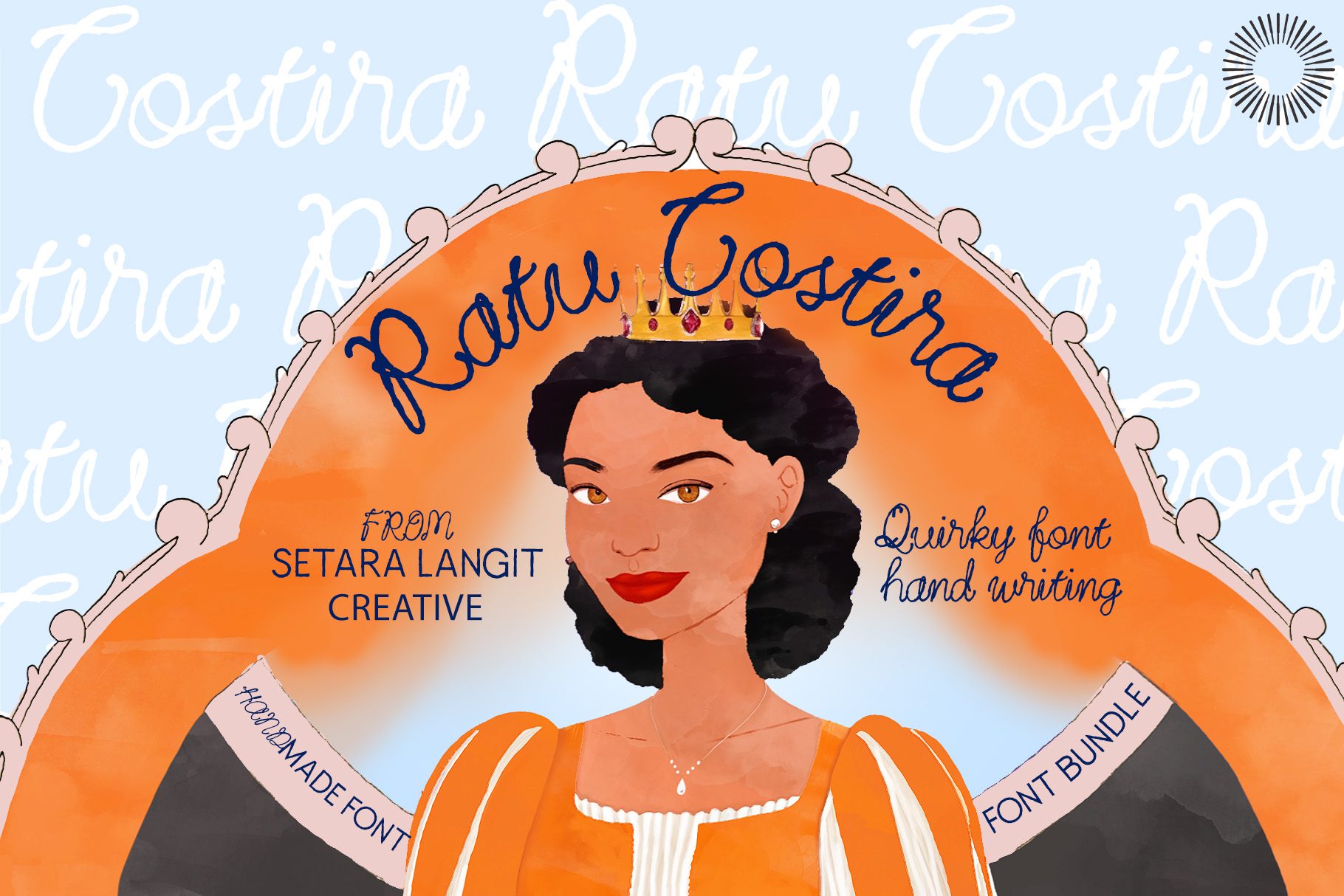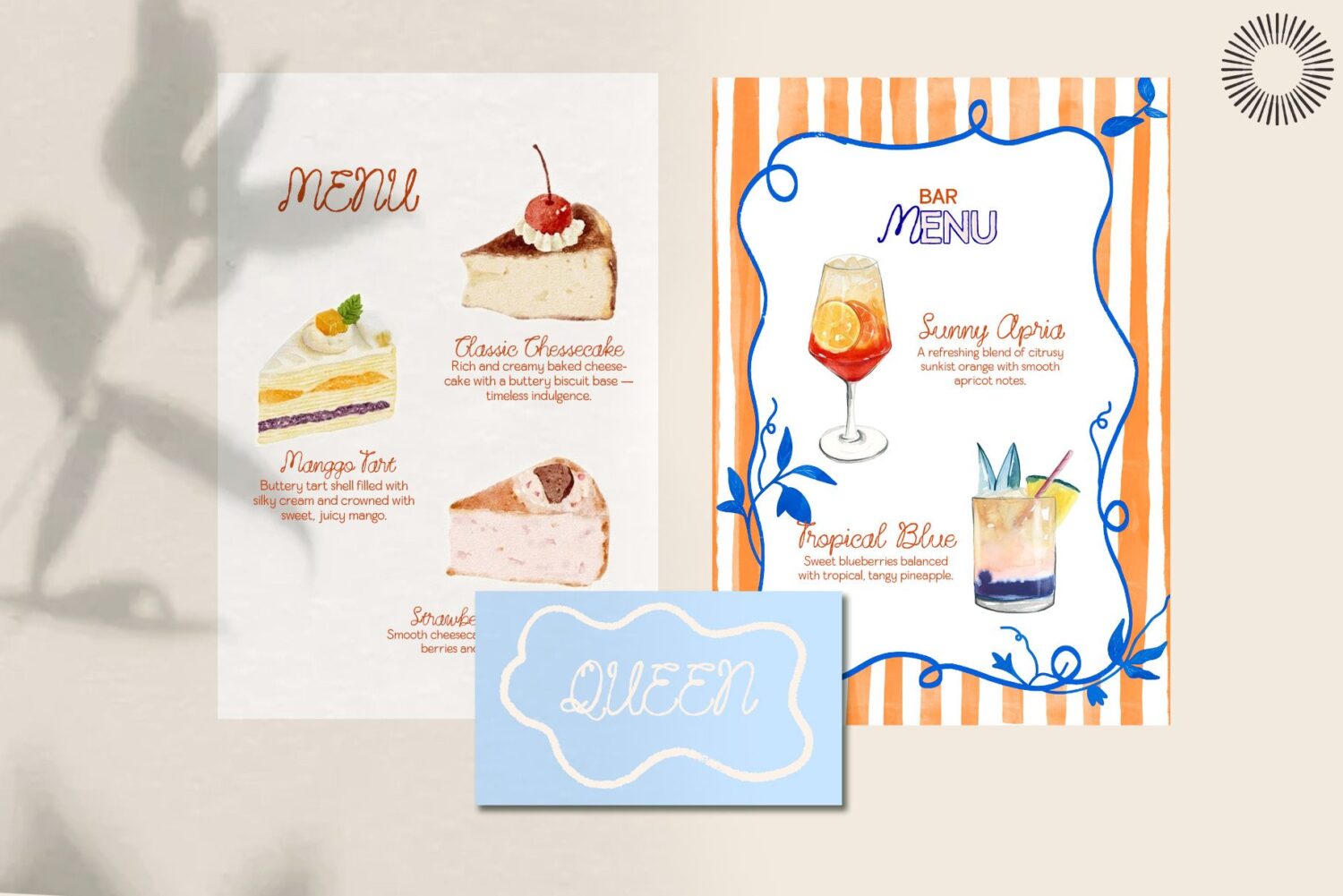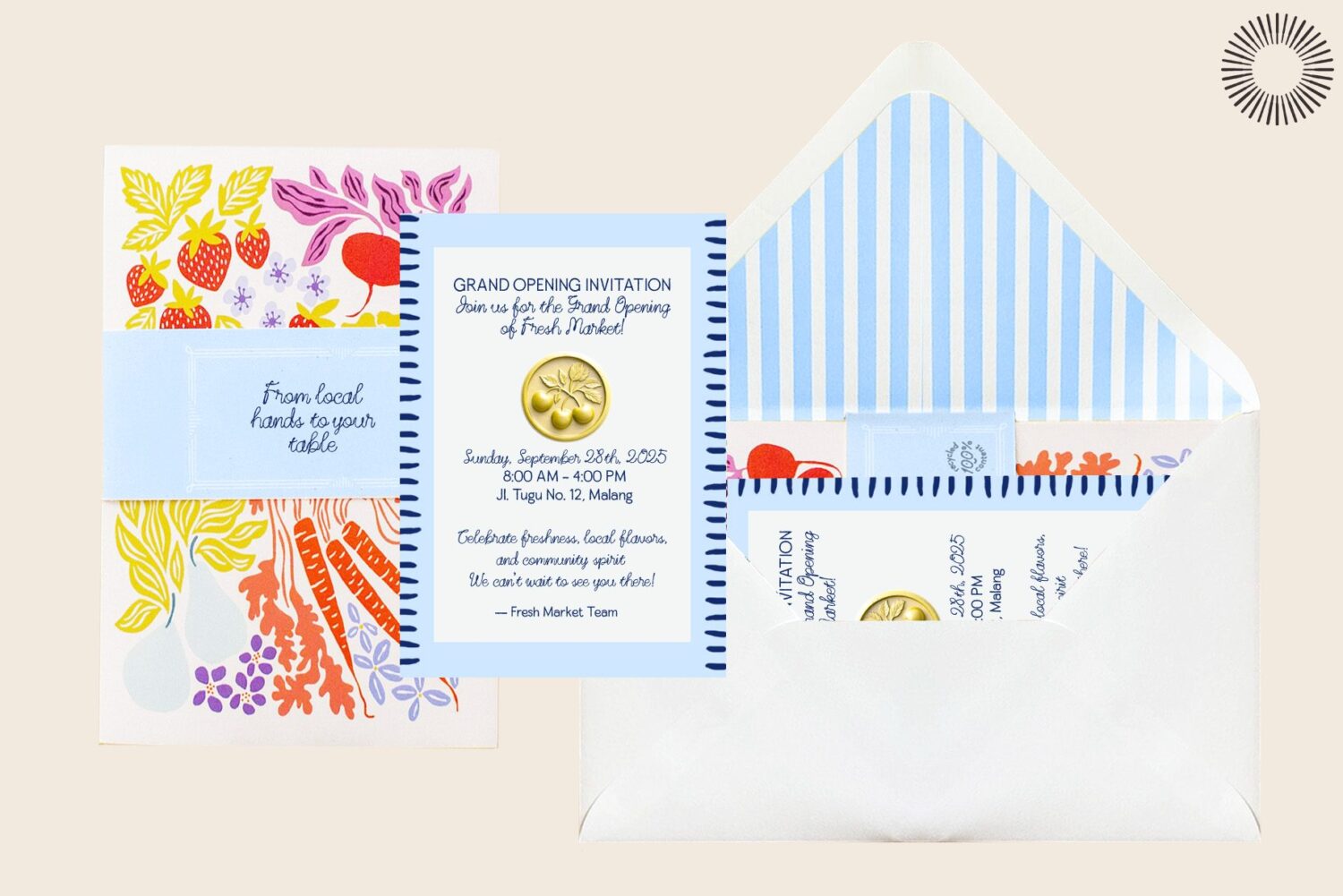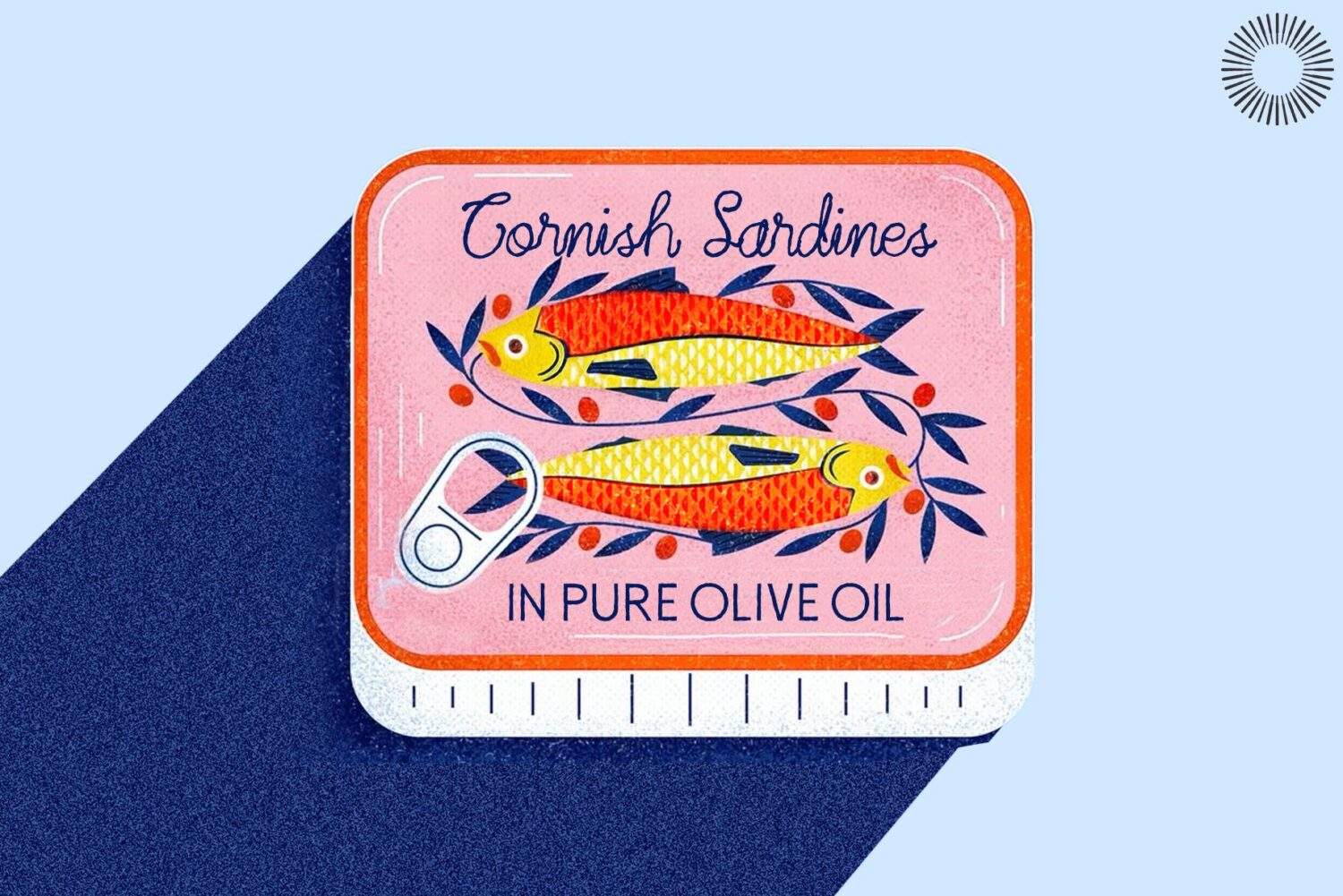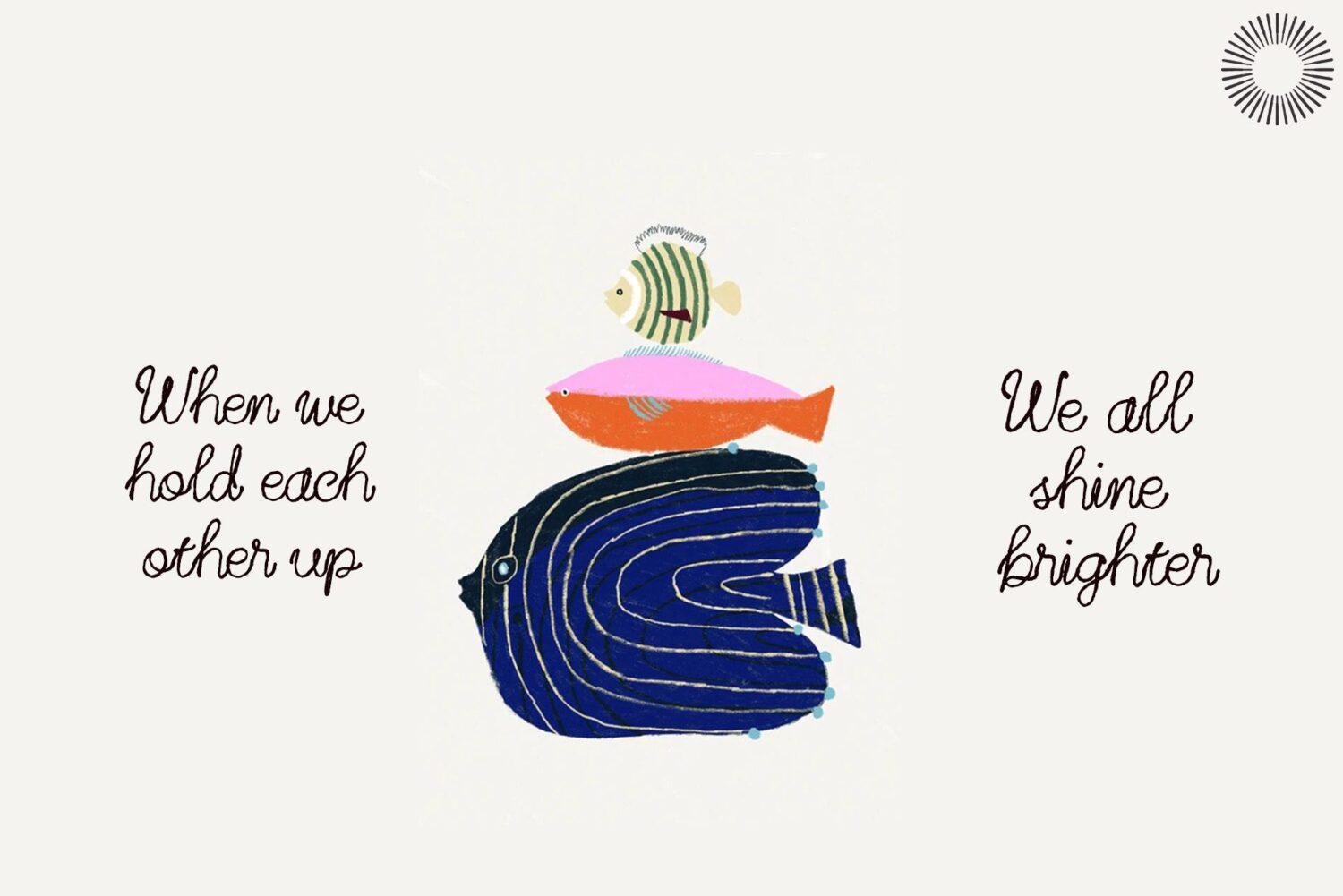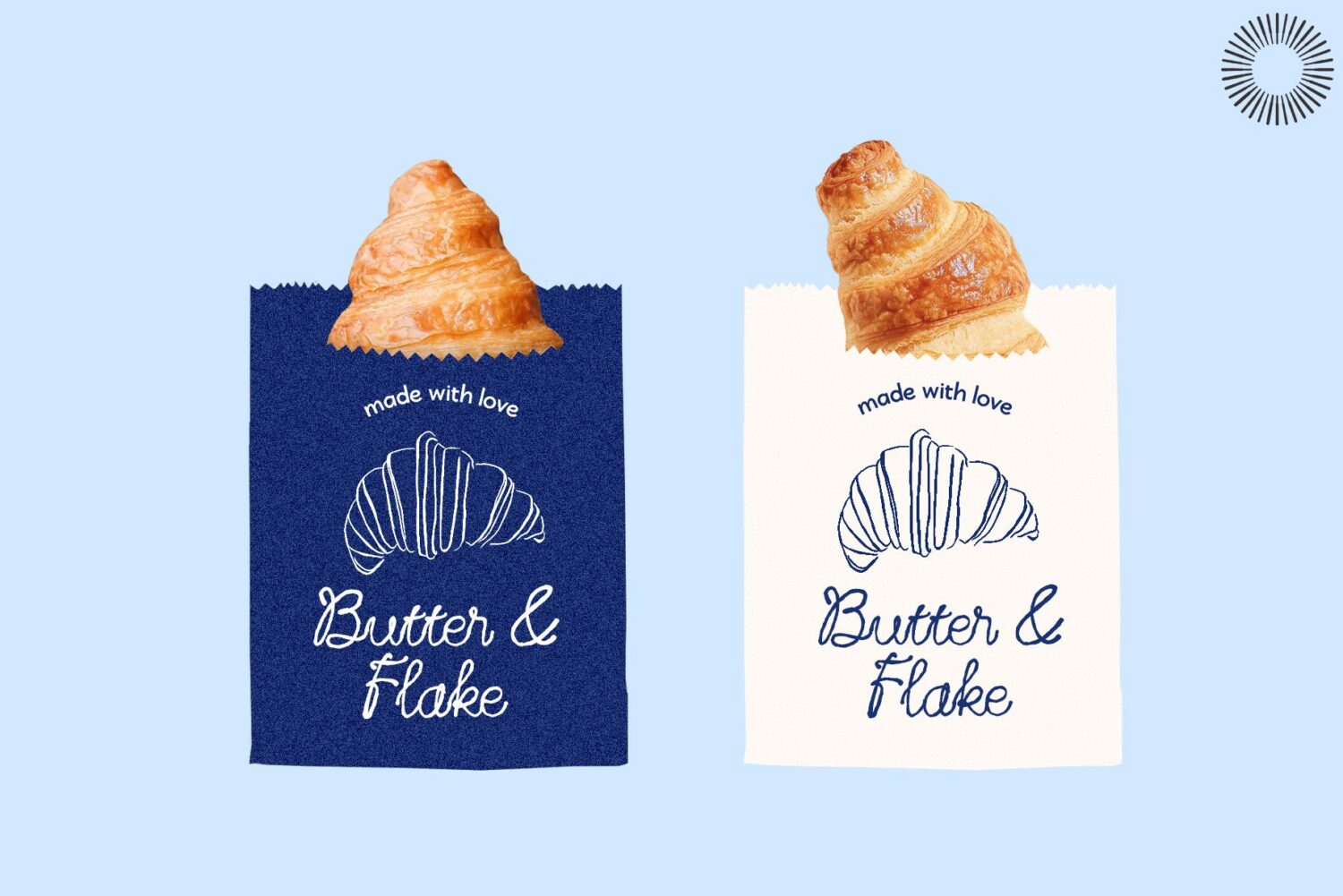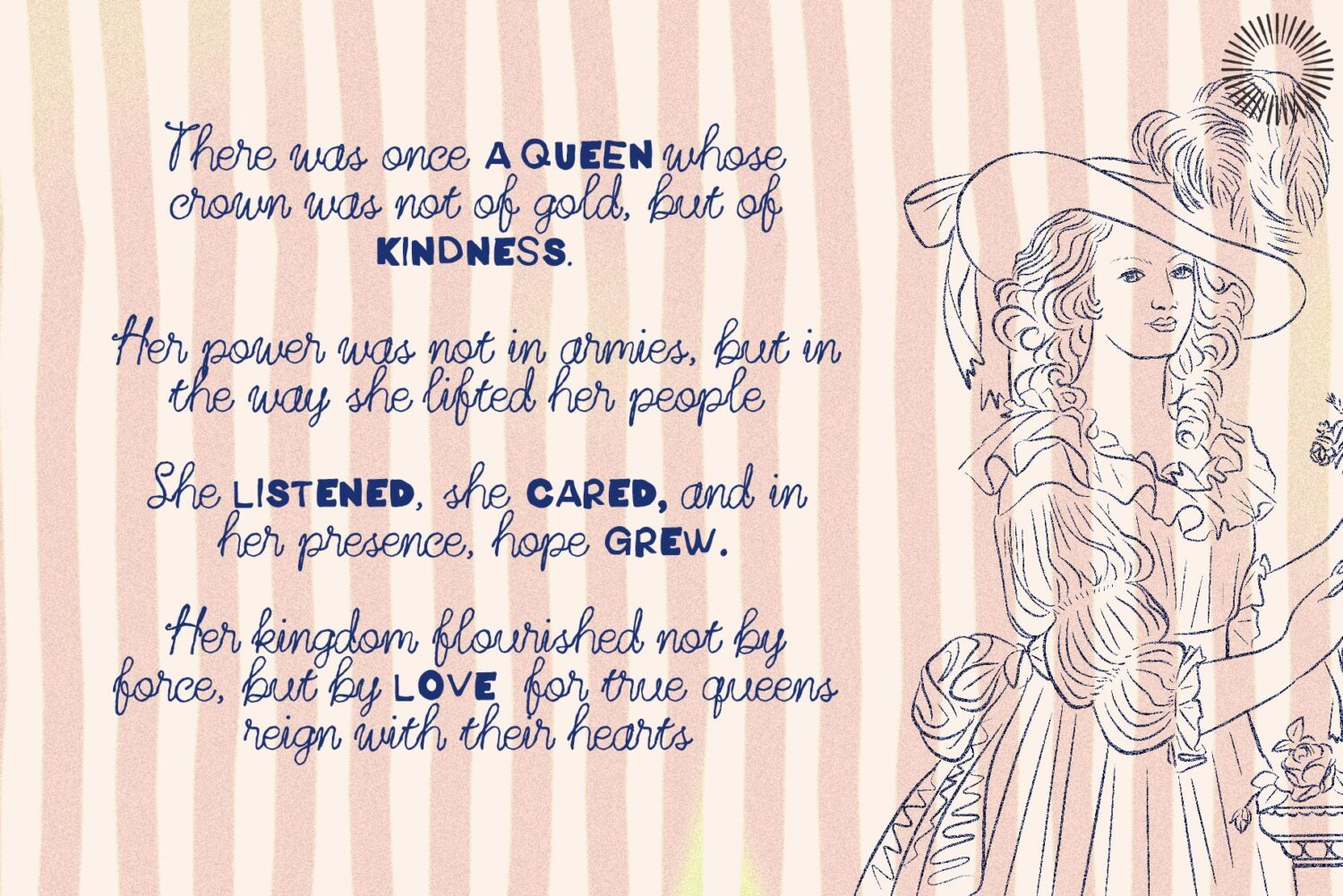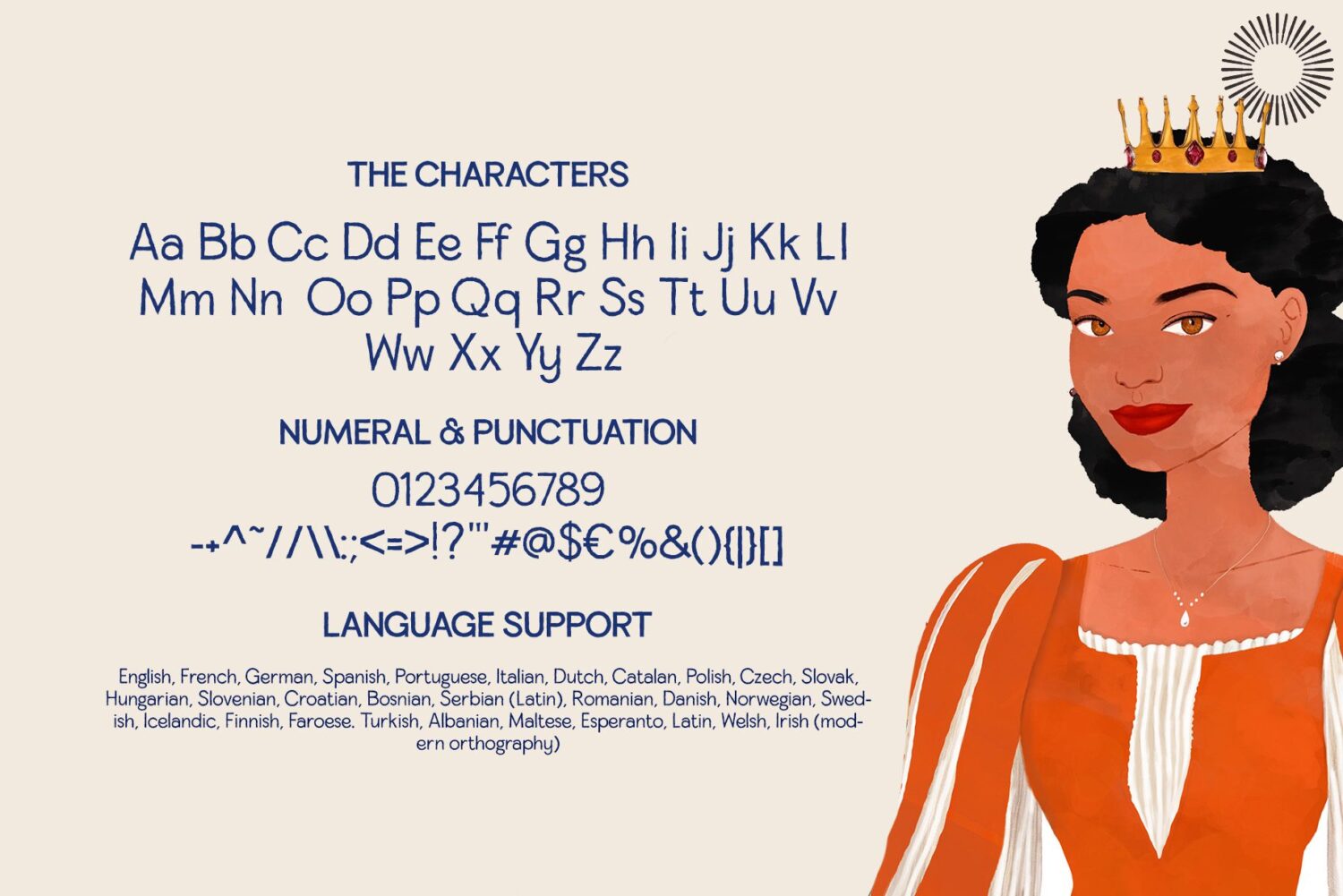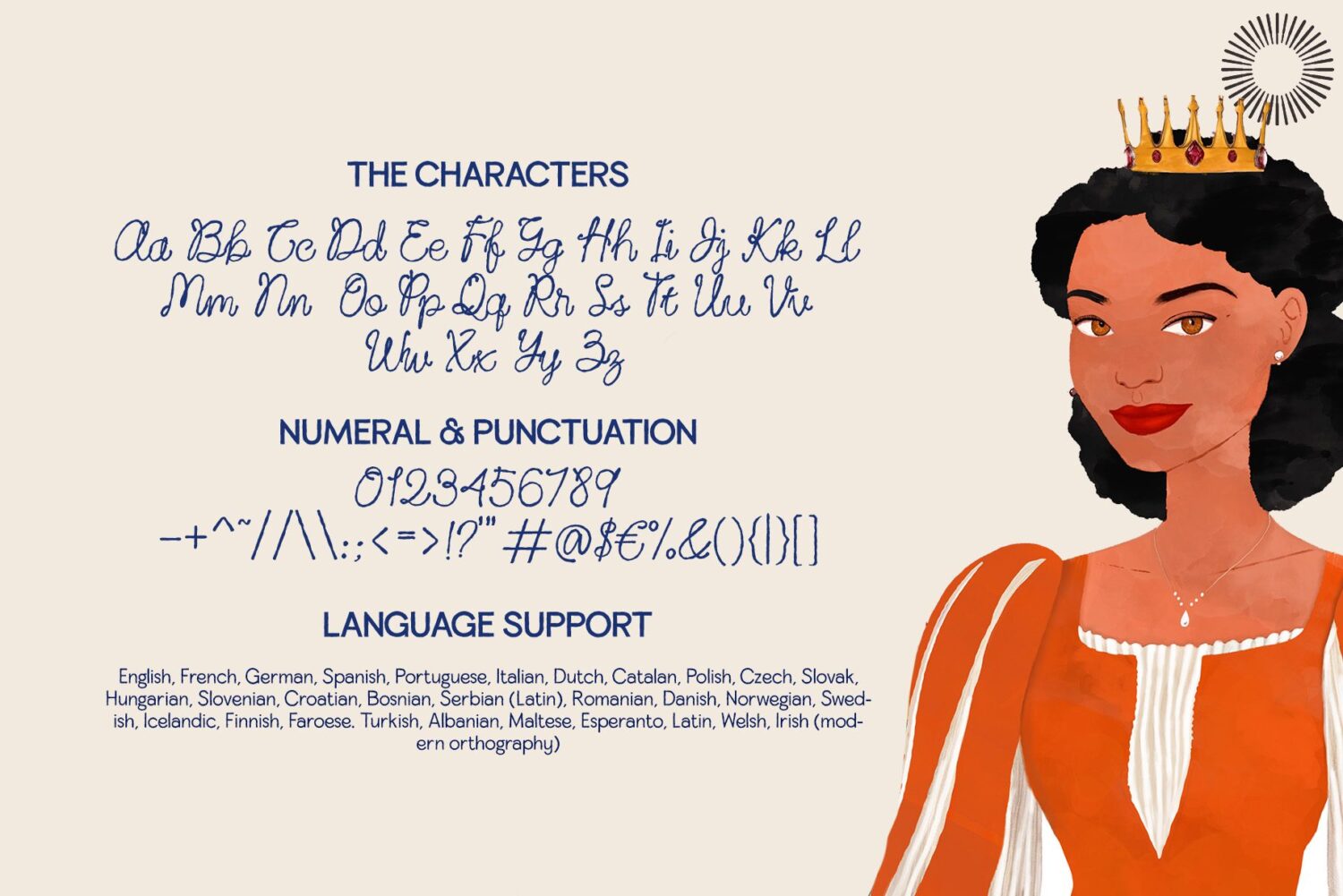
quirky handwriting font
Ratu Costira Sans
Ratu Costira Regular
Ratu Costira – Quirky Handwriting Font
Ratu Costira, a handwritten font that dares to be different. It doesn’t follow strict rules or rigid structures—because handwriting, just like personality, is meant to be unique. With its playful curves and quirky strokes, Ratu Costira carries the spirit of freedom while still keeping a touch of elegance, like a queen who knows how to laugh at life yet walk with grace.
This font is more than just letters on a page, it’s an expression. Every stroke feels personal, warm, and approachable, yet bold enough to stand out in any design. Whether you’re crafting invitations, branding your business, designing social media content, or simply looking for that perfect handwritten touch, Ratu Costira adds a spark of authenticity that connects instantly with the eye and heart.
Created to celebrate individuality, this font invites you to break away from the ordinary. It’s not polished to perfection, because perfection can sometimes feel too distant. Instead, Ratu Costira embraces imperfection beautifully, making your words feel more human, more alive, and more relatable.
So if you’re searching for a font that can carry both playfulness and sophistication in the same breath, something quirky yet confident. Ratu Costira is here to crown your designs with personality.
Feature
• Multilingual support
• Uppercase & lowercase
• Numerals & punctuation